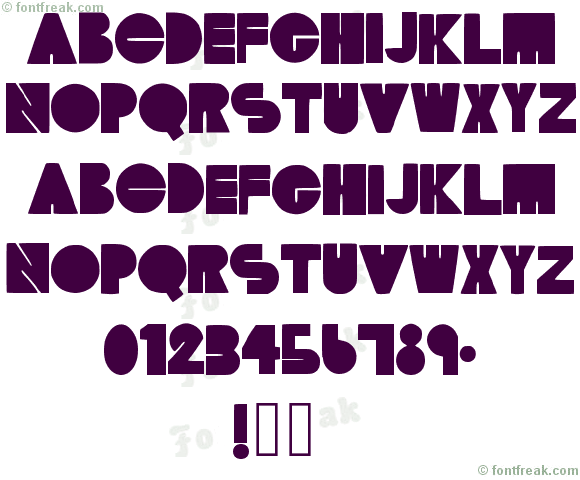
TMTonite
TMTonite by Luedecke Design Font Co. is a striking sans-serif typeface that exudes modern sophistication. Characterized by its clean lines and balanced proportions, this font showcases a consistent stroke weight that creates a harmonious visual flow. The minimalistic design emphasizes functionality while maintaining an aesthetically pleasing appearance, making it an excellent choice for a variety of applications. The letterforms are well-spaced, ensuring readability and clarity, which is essential for both digital and print media.
The TMTonite font is particularly well suited for use in branding, marketing materials, and digital content. It can elevate the look of wedding invitations, lending a contemporary touch to a classic occasion. Additionally, its bold presence makes it ideal for movie posters, where attention-grabbing typography is crucial. Restaurant menus can benefit from its sleek design, drawing customers in with appealing visuals. Content creators will find that TMTonite enhances online articles and social media graphics, providing a modern edge that resonates with audiences.
What sets TMTonite apart is its blend of simplicity and modernity. The font stands out in a crowded marketplace, ensuring that your designs will capture attention while remaining legible and professional. Whether you are crafting a brand identity or designing promotional materials, the TMTonite font free download provides an exceptional resource for anyone looking to enhance their creative work. Embrace the elegance and functionality of TMTonite and elevate your designs to new heights.